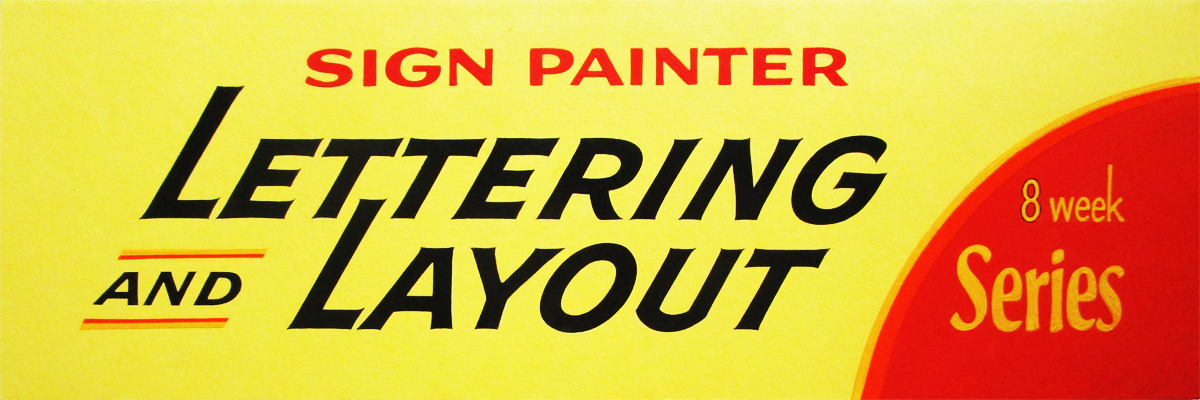
Commercial brush lettering styles are integral to the professional appearance of a painted sign. Such styles have often served as inspiration for display typefaces used by graphic designers, and sign makers alike. The warmth and charm of brush-made letterforms have ubiquitous appeal for a wide range of applications.
Through weekly brush lettering demonstrations and instructional lectures, students will be taught the basics of brush lettering and layout. Students will practice exercises and work on projects designed to build skills and to develop an eye for letter anatomy, proportions, and details. Classes will be held online. Therefore, students will be expected to set up an appropriate work space to participate. (see materials list). Letterform model sheets and traditional layout exemplars will be shared as pdfs throughout the course as reference for practice. These will be useful as digital files on screen or as printed material. Individual and group commentary will provide valuable feedback for each student to progress according to ability.
The styles to be taught are Block, Half Block, Thick and Thin, Block Italic, and Cut-in. Each of these styles has its own separate set of structural rules, but all five have much in common with one another. In addition, basic principles of layout will be addressed. Students will learn how to use a flat ferrule lettering brush with tempera paint to form a set of foundation strokes, and then to construct characters from the component strokes.
The main objective is for participants to acquire a depth of familiarity with the conventional styles of 20th-century sign letters, and to learn to make and use them as they were meant to be used graphically. No prior lettering experience is necessary, but typography and graphic design experience would be helpful. Knowledge of commercial fonts is also a bonus. Beginners are welcome. The instructor will work to provide useful challenges and projects, tailored to the experience levels of lettering artists who join. Evaluations will also be given.
John Downer
Mr. Downer is a sign painter, a typeface designer, and an educator. He has written about type and type history for various publications and is widely known as a perceptive type critic. His typefaces have been published by Bitstream, Font Bureau, Emigre, House Industries, and Design Lab. Among his most popular type designs are Iowan Old Style (on Apple Books and iOS 7+), Roxy, Ironmonger, and the ubiquitous food and beverage branding favorite, Brothers.
Mr. Downer has been a journeyman sign painter since 1973, a freelance typeface designer since 1983, and a crusader for designers’ rights his entire adult life. He began teaching lettering at the university level in 1972, making him one of the most experienced American educators in the fields of lettering and typeface design. He’s been teaching in the Type@Cooper program at The Cooper Union since its founding in 2010. He established the Sign Painting Support Group on Facebook as a platform to educate and guide serious enthusiasts and professionals in the principles of letter construction and the tricks of the trade. Follow him on Instagram.